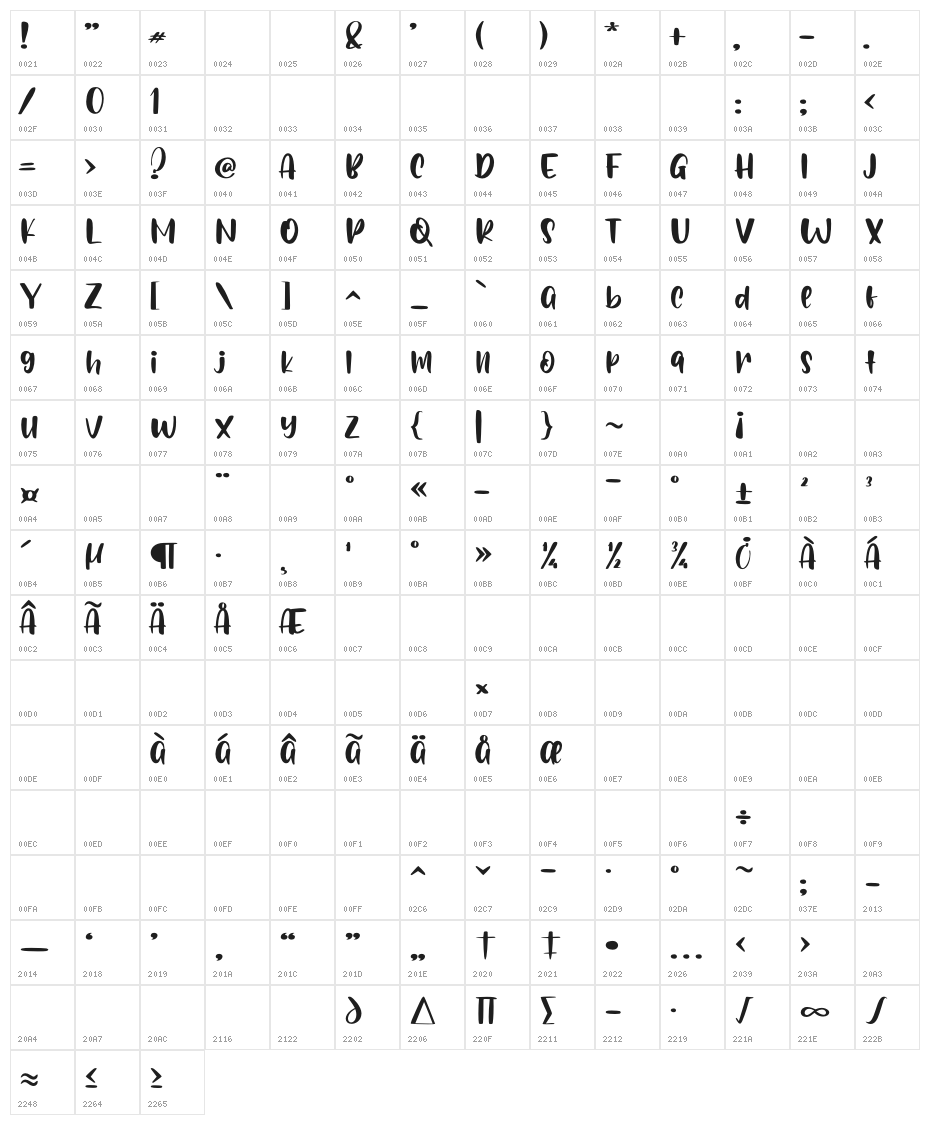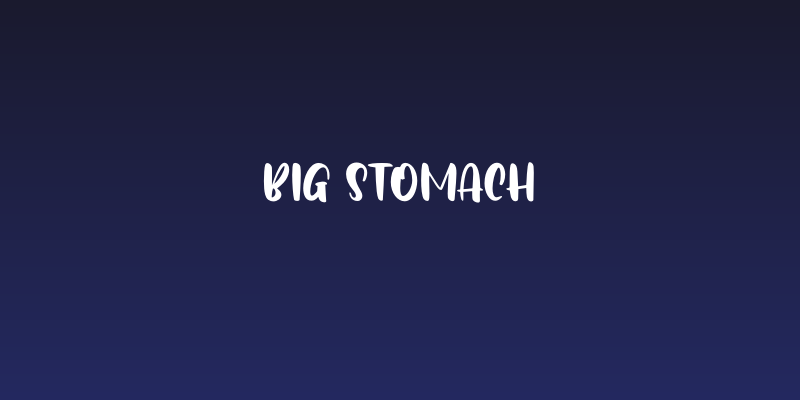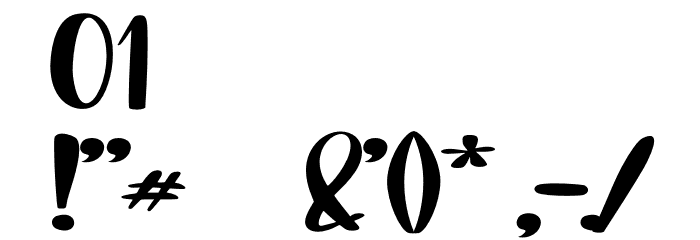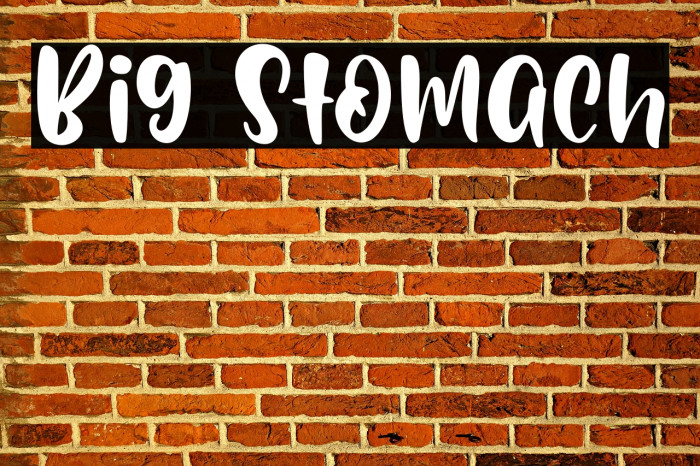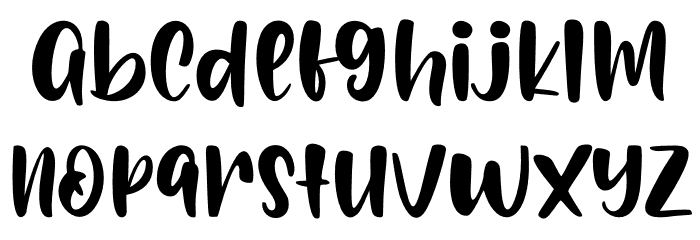
Big Stomach Font
Big Stomach Description
This font features a bold and playful script style with a handwritten appearance. The letters are thick and rounded, giving a friendly and approachable feel. The strokes are consistent in width, contributing to a cohesive look across all characters. The uppercase and lowercase letters maintain a uniform style, with some playful variations in the curves and loops, adding a touch of whimsy. The numbers and special characters are designed to match the overall aesthetic, ensuring versatility in various design applications.
| Proposed Projects | Ideal for greeting cards, playful branding, children's books, and social media graphics. |